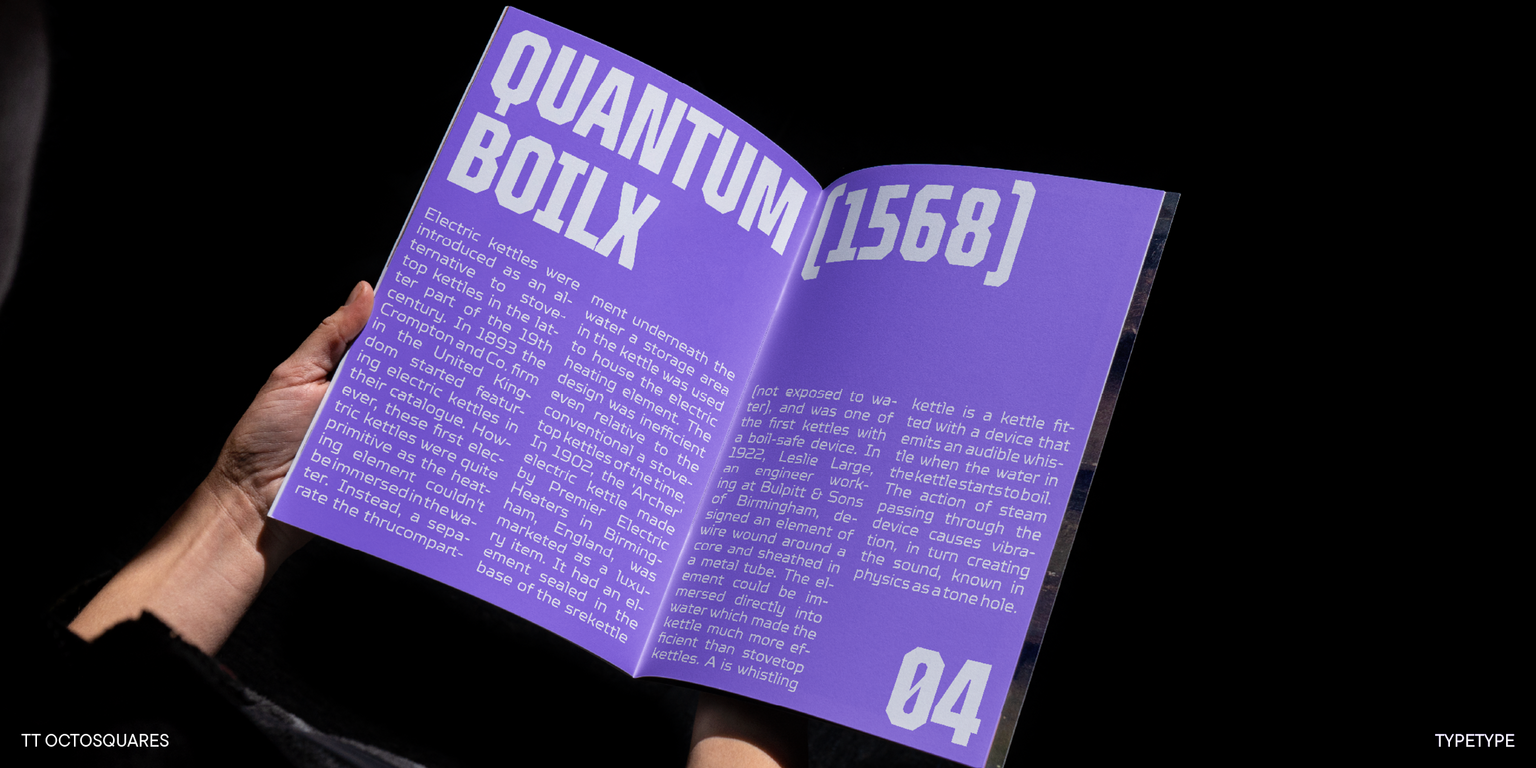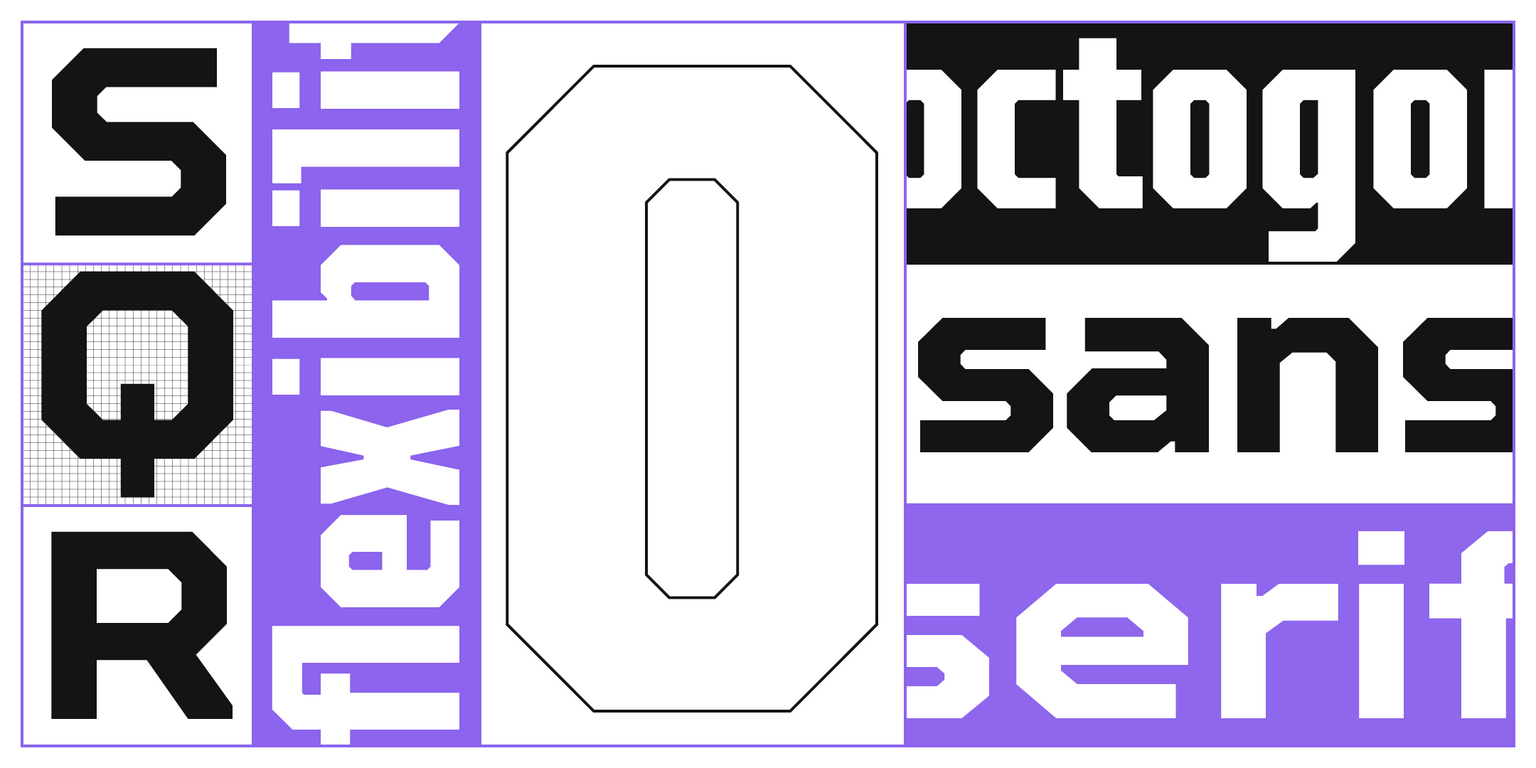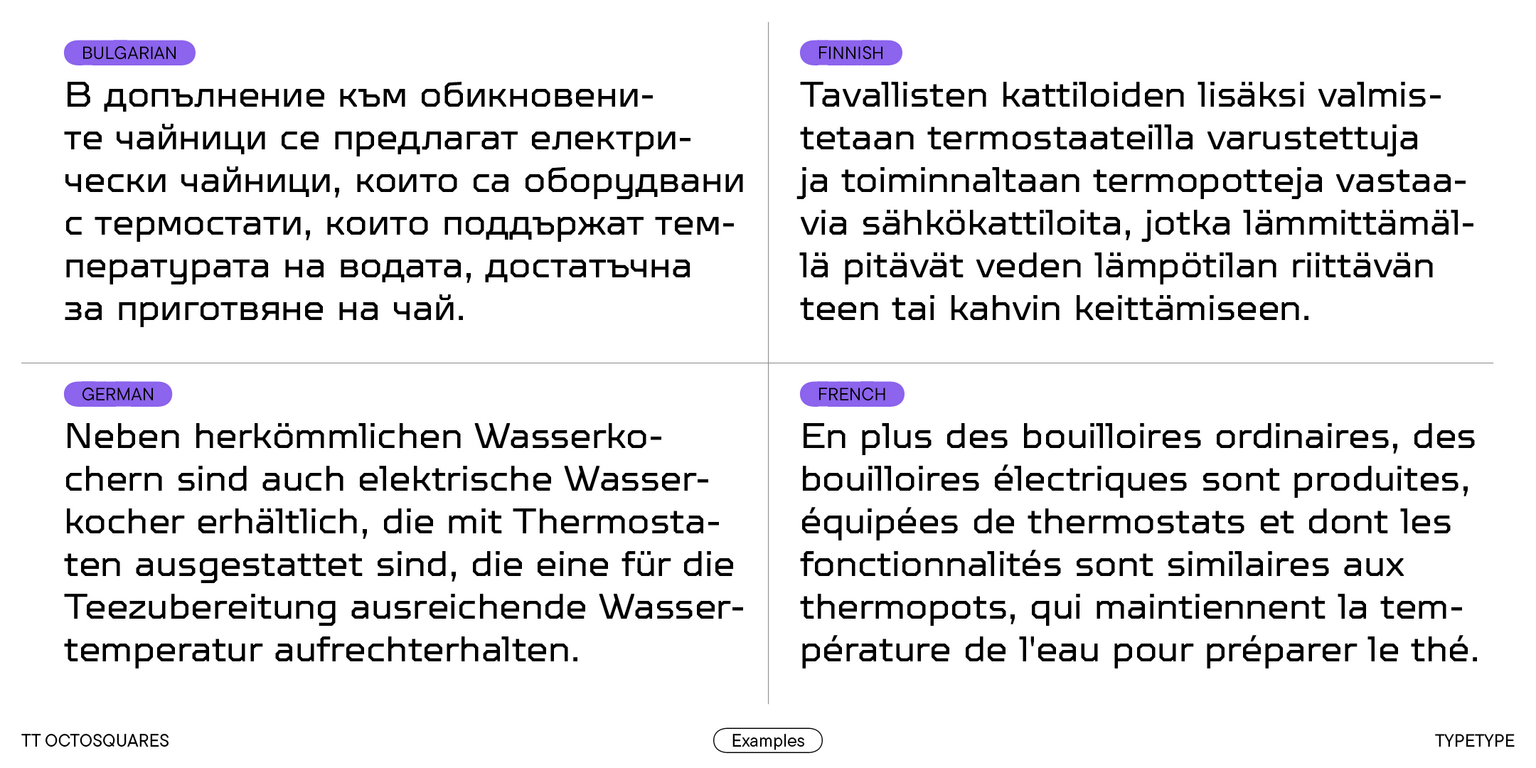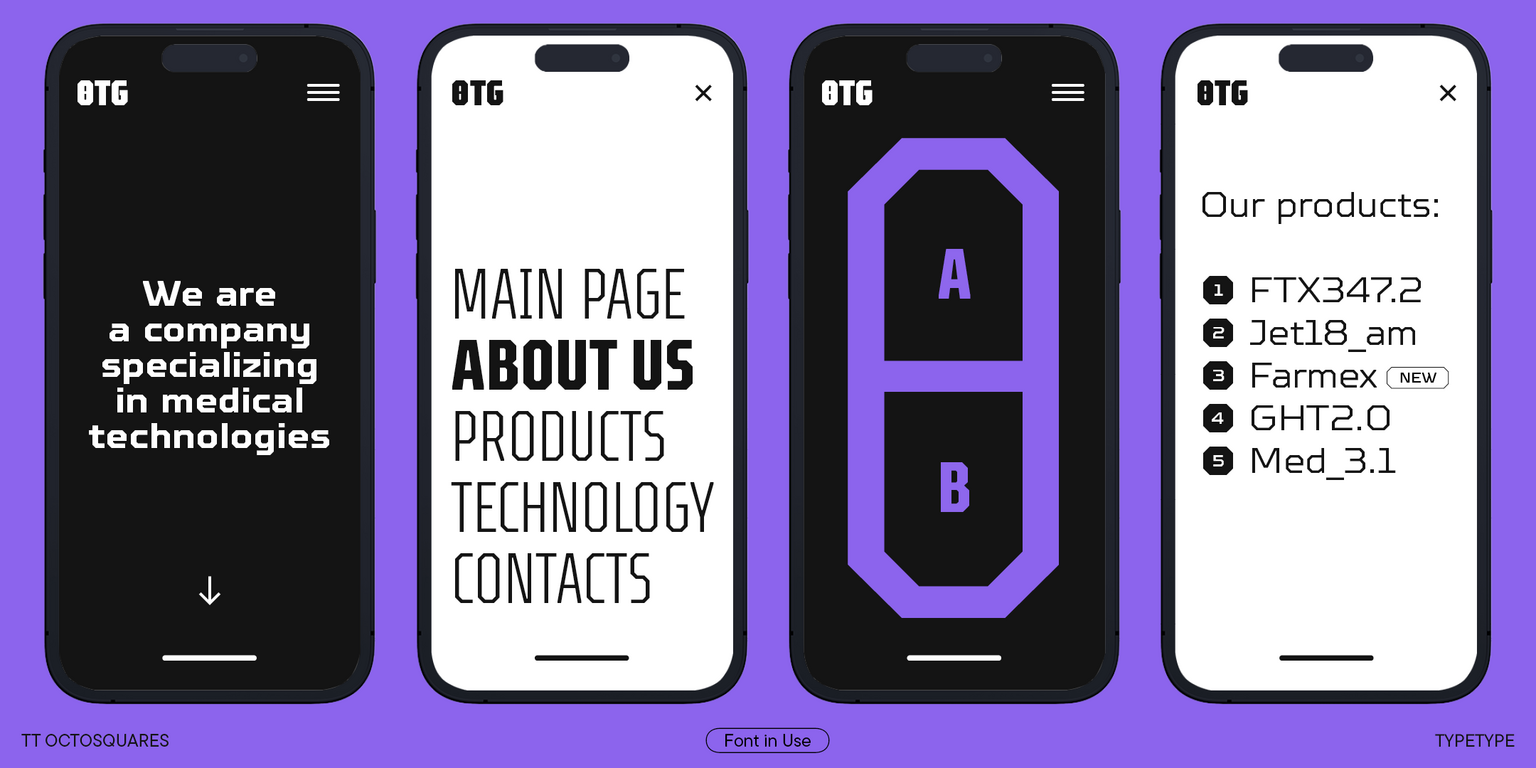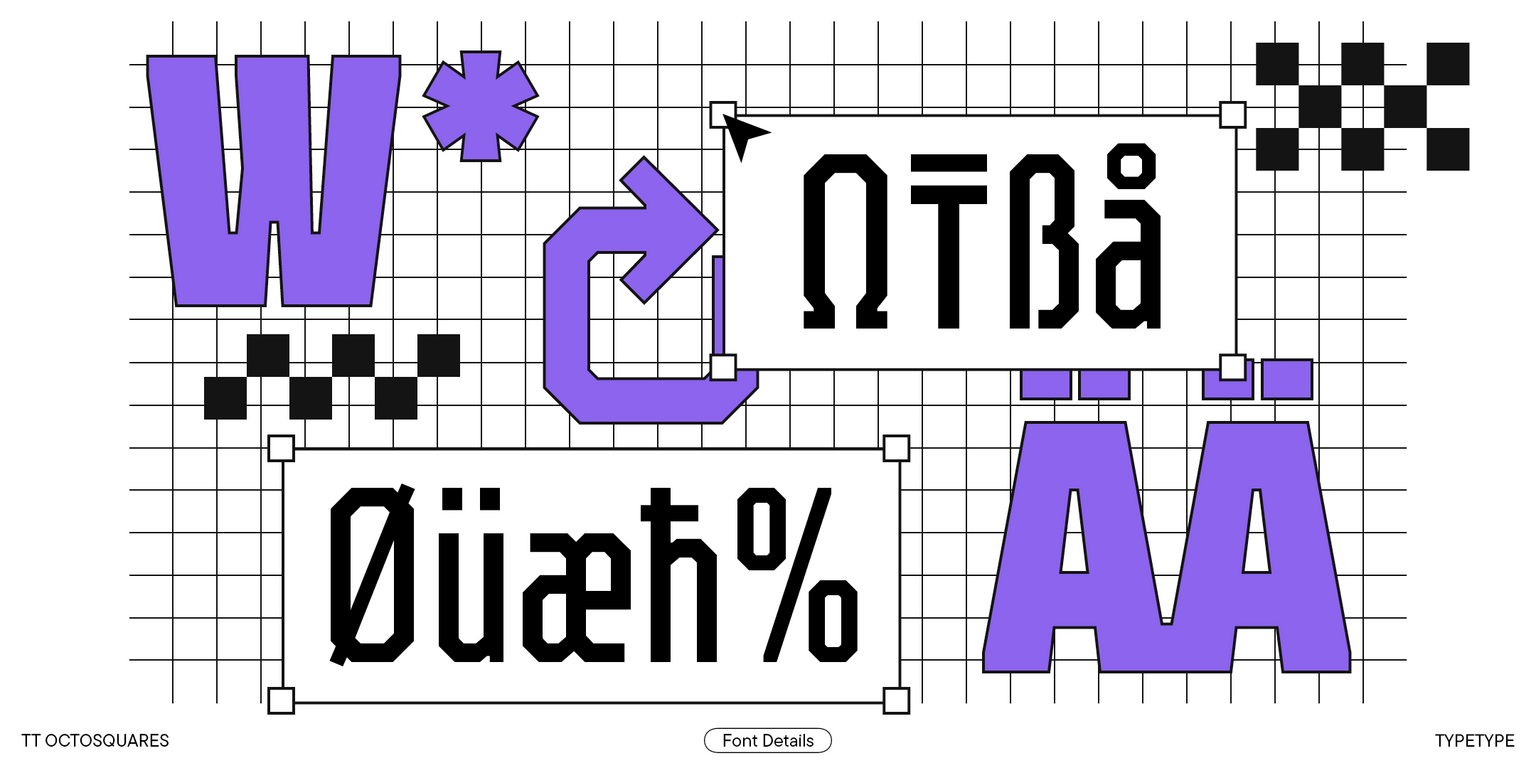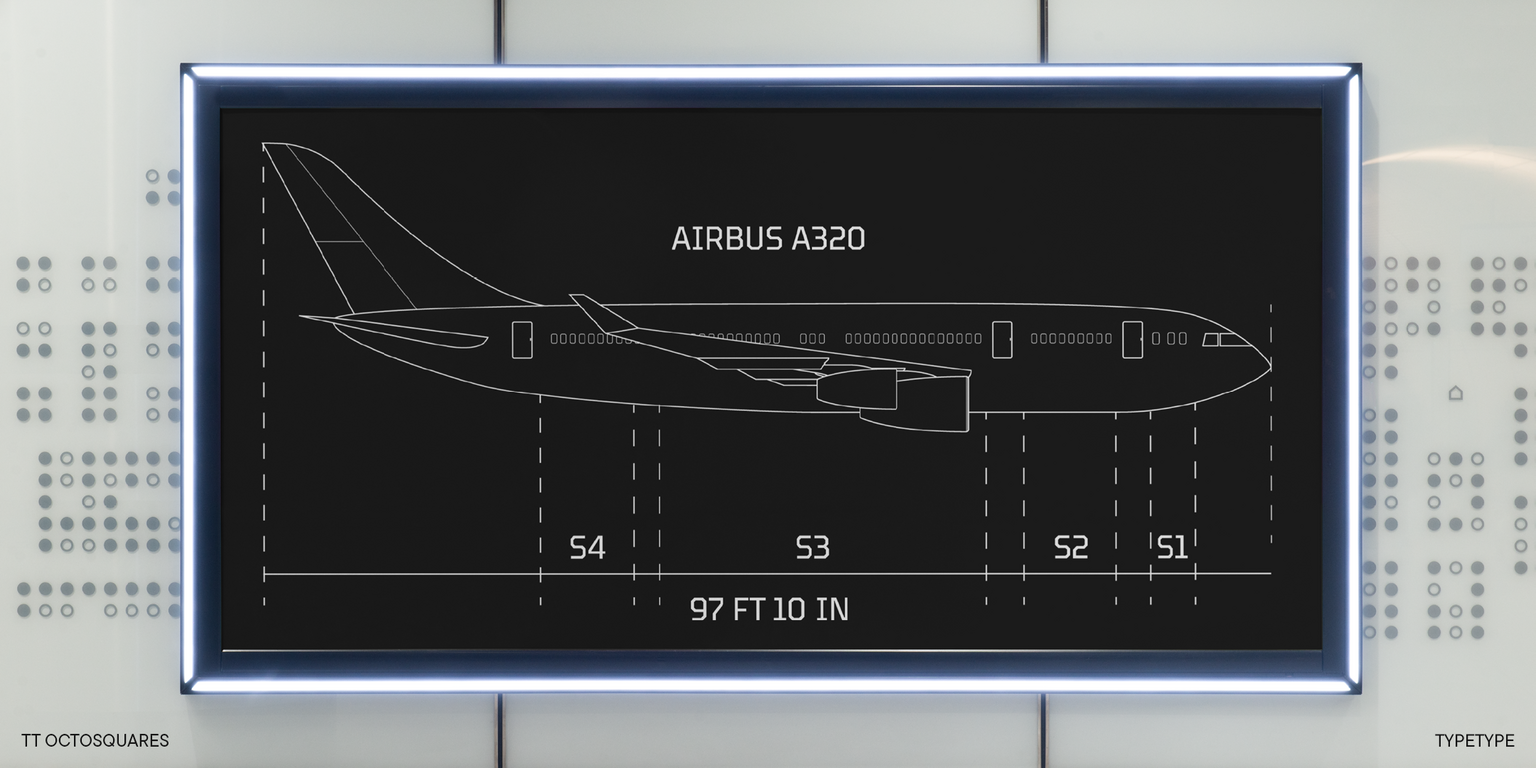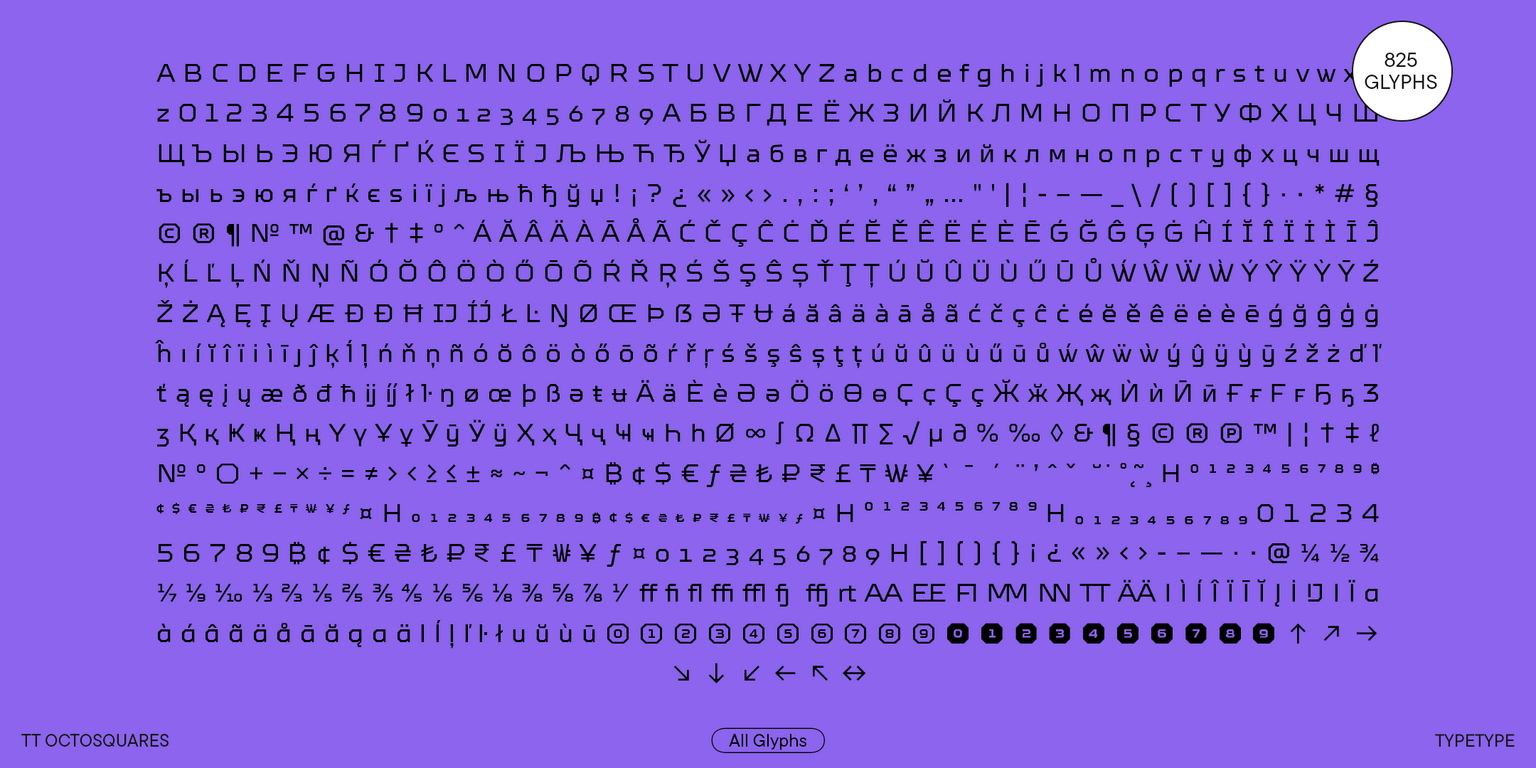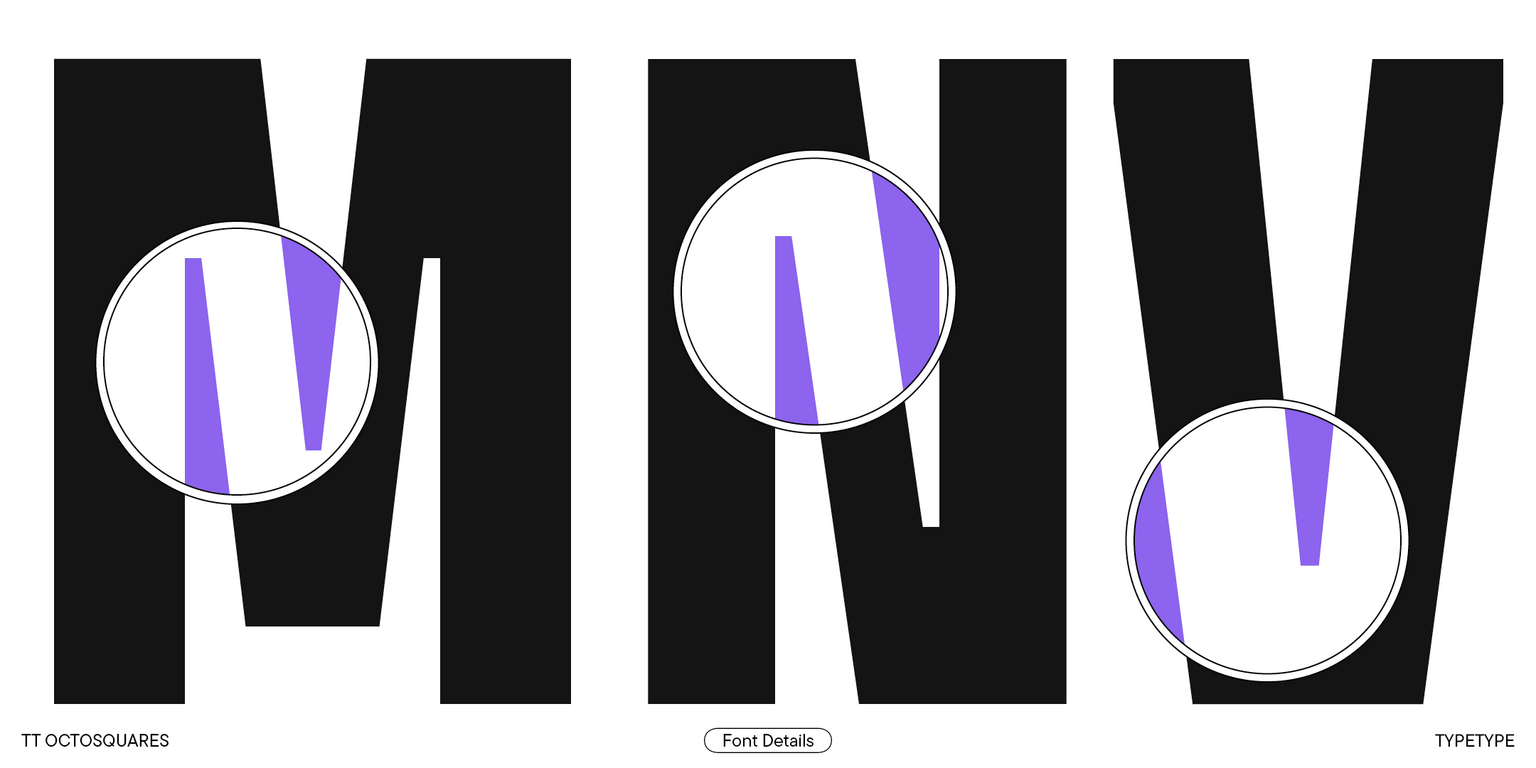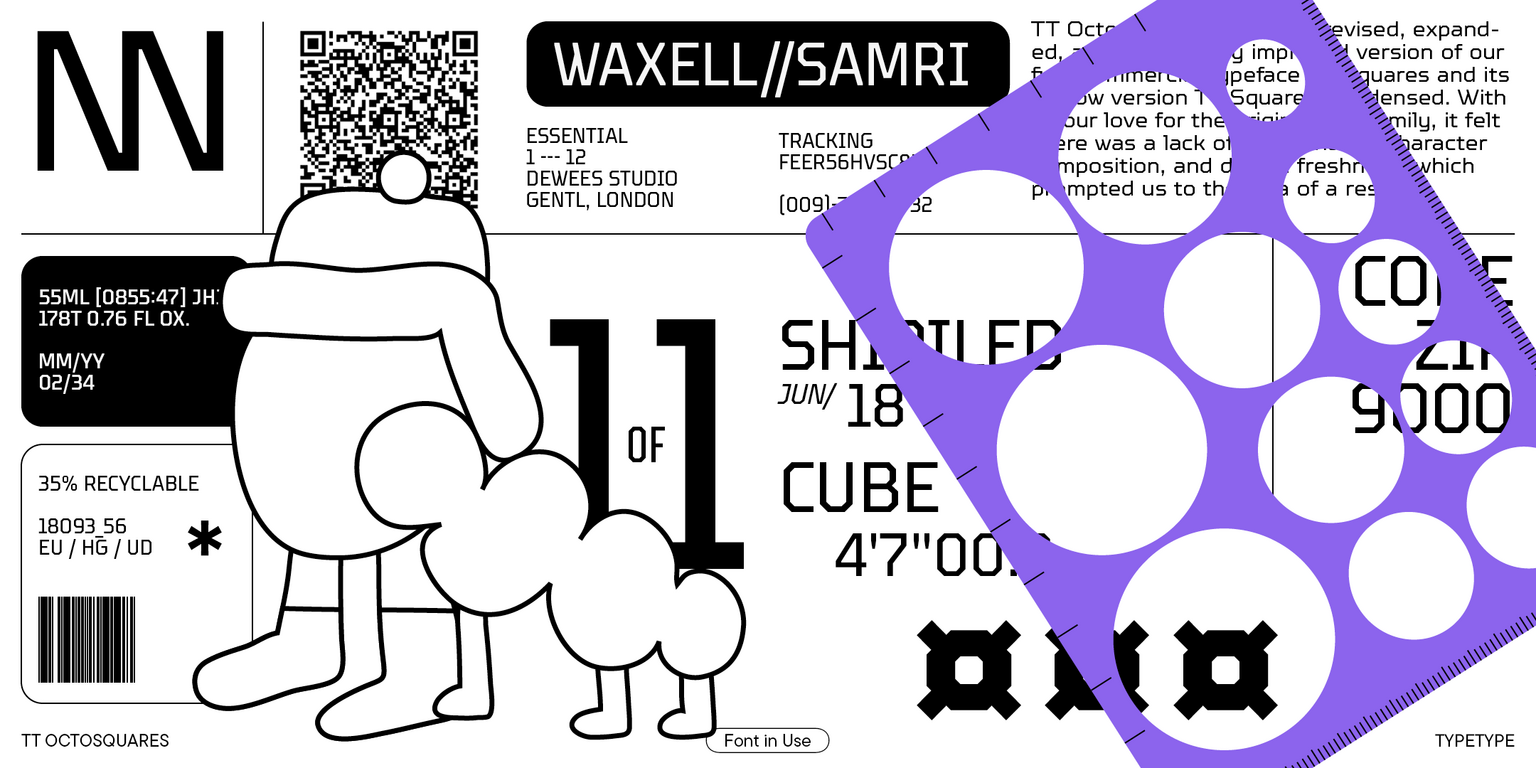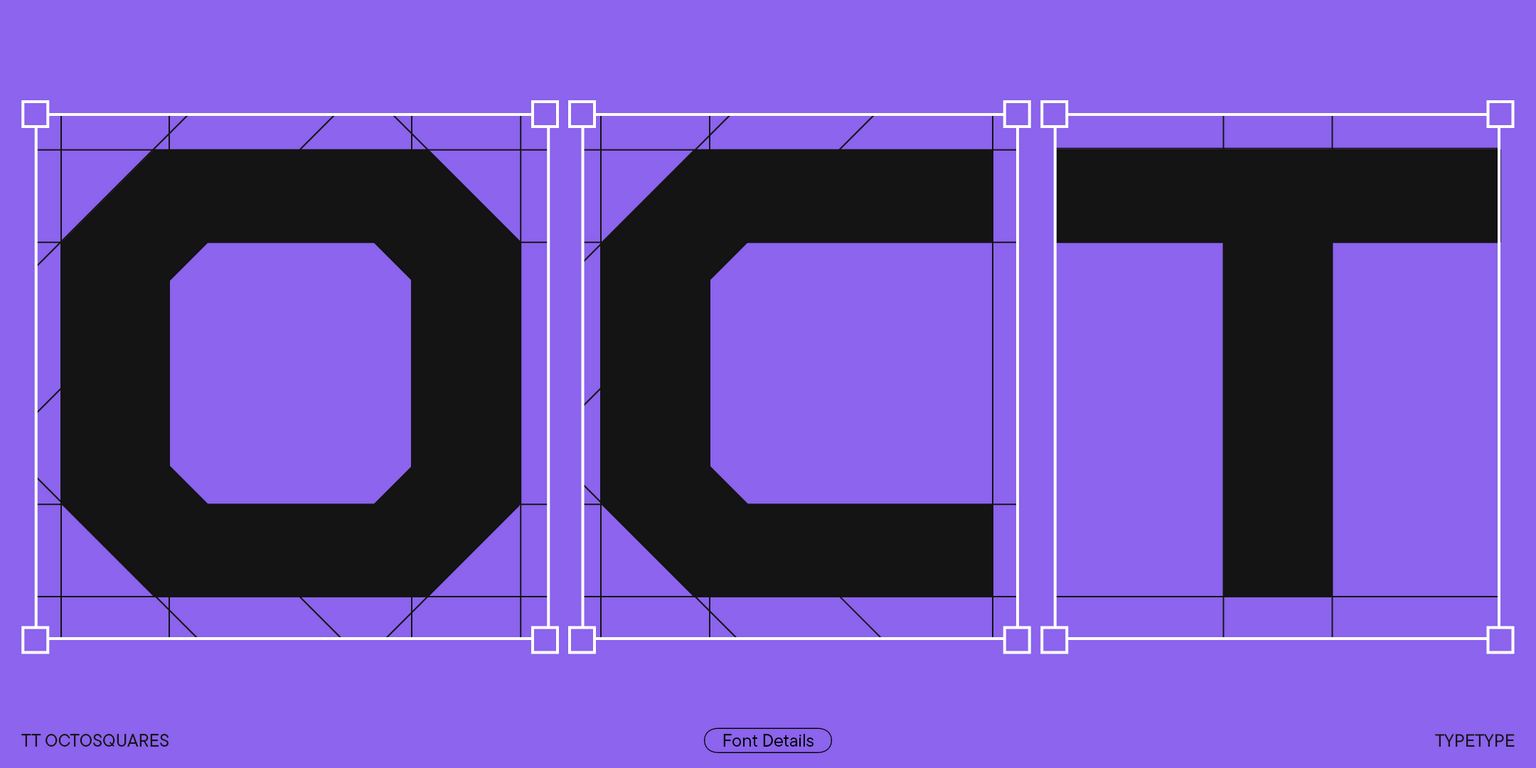
TT Octosquares
TT Octosquares is an octagonal sans serif with futuristic traits. This "mosaic" display font appears assembled from various elements, which is clearly visible even in the tiniest details.